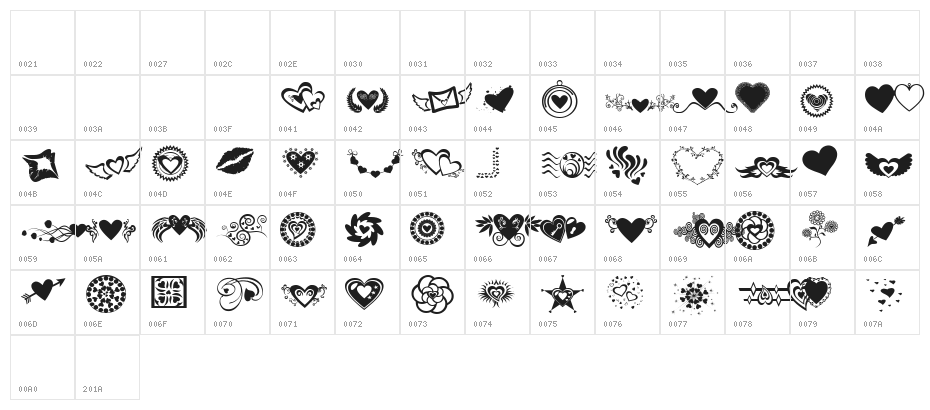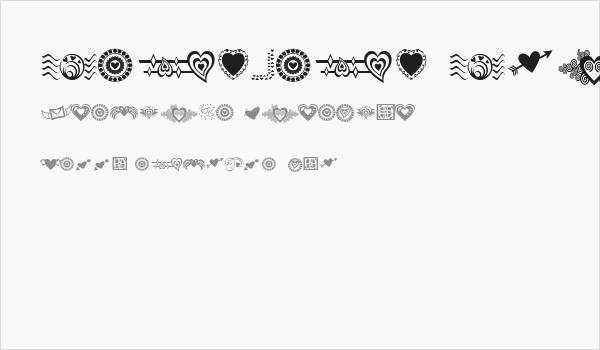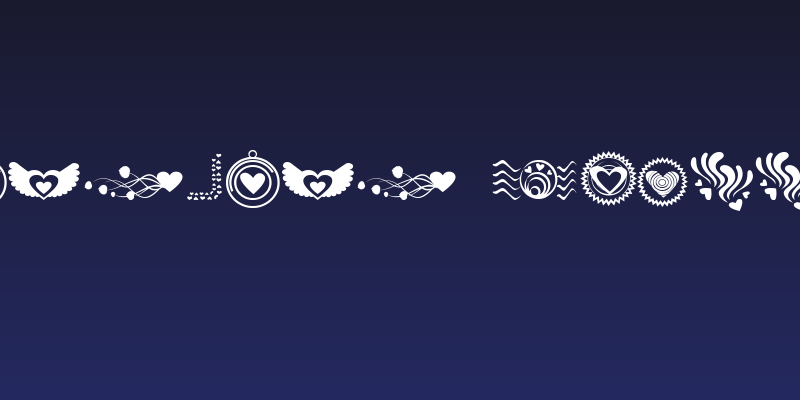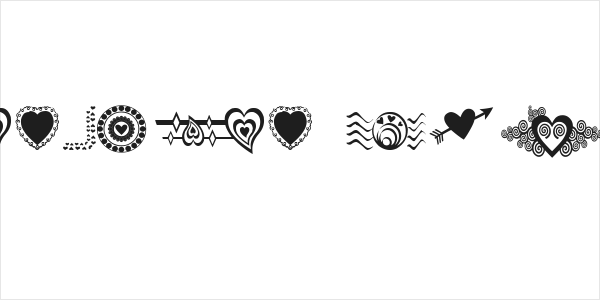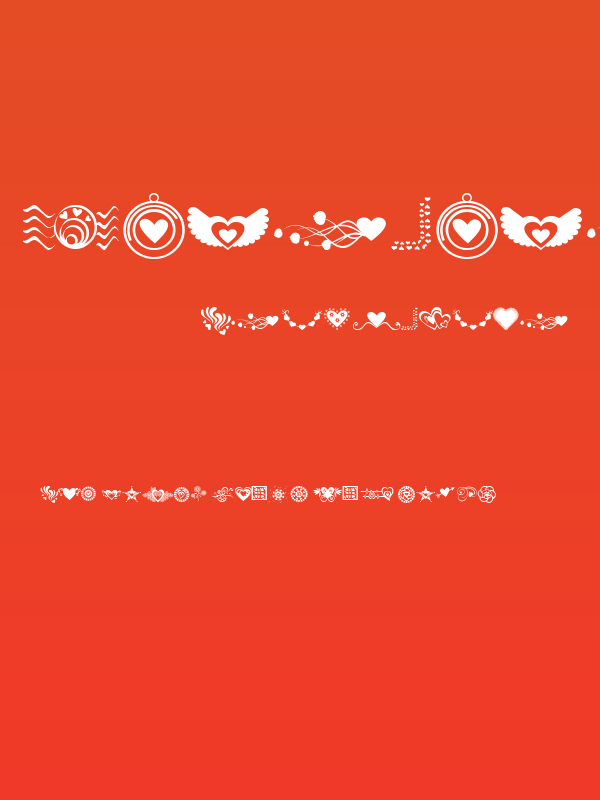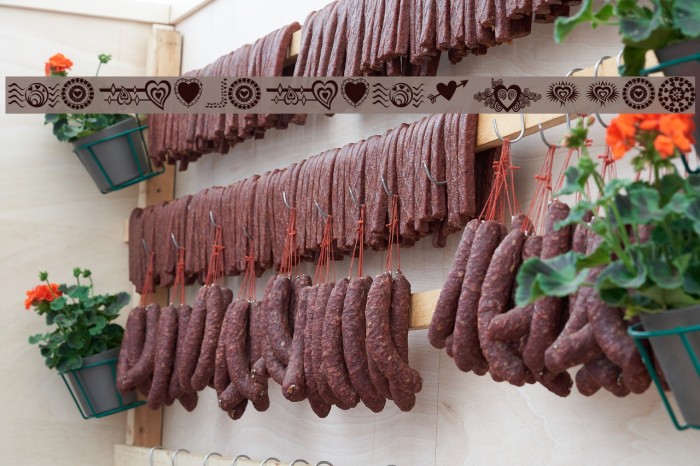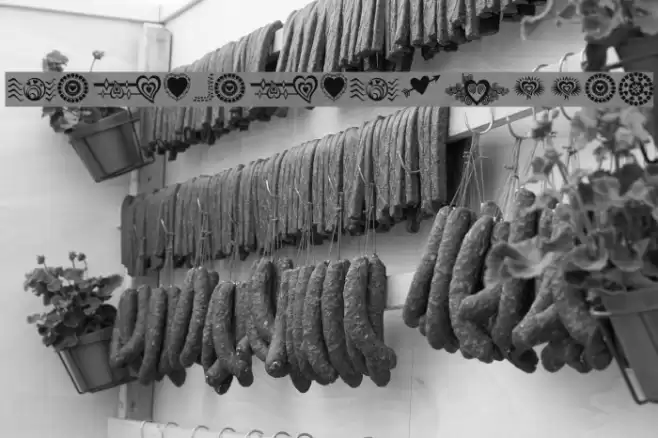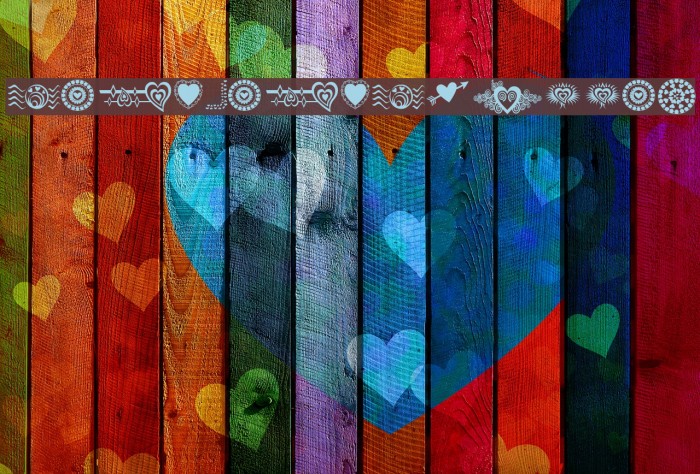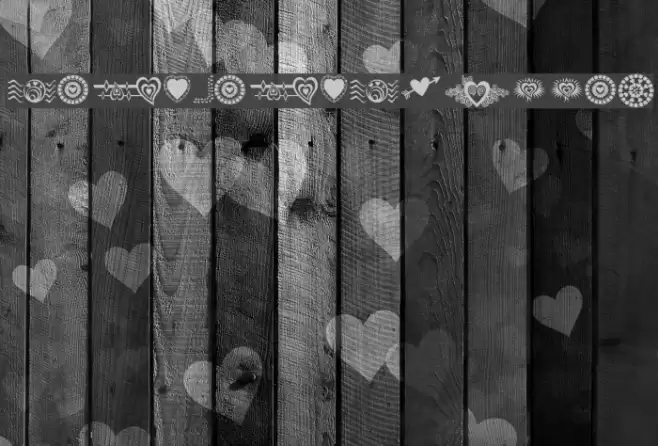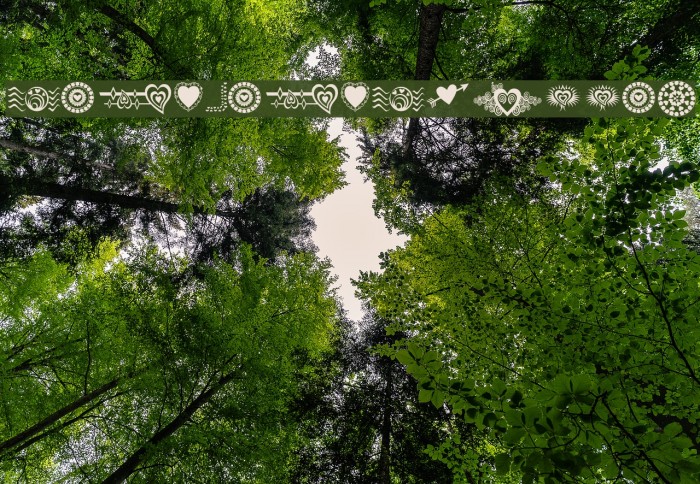
SexyRexy-Smitten Font
SexyRexy-Smitten Description
A decorative dingbat set featuring a variety of heart-themed and romantic symbols, including lips, roses, envelopes, swirls, and ornate flourishes. Each character is a unique illustration, combining playful and whimsical motifs with bold, solid shapes and intricate details.
| Overall Style | Decorative, Playful, Romantic |
| Use Case | Ornaments, Borders, Themed graphics, Decorative accents |
| Proposed Projects | Valentine's Day cards, wedding invitations, romantic event flyers, scrapbooking, decorative borders, and themed social media graphics. |